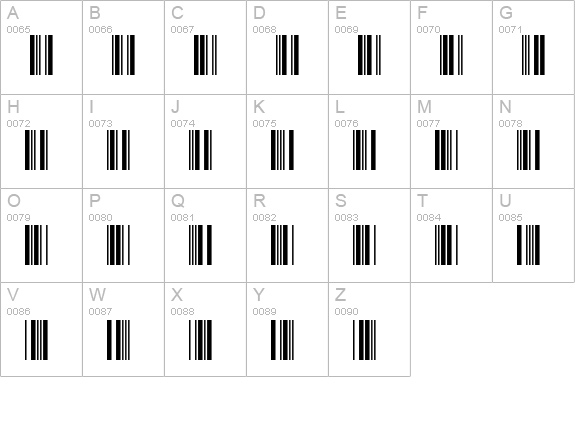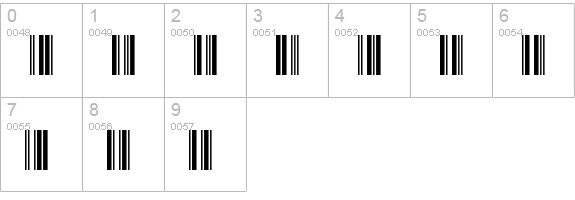
RSWide39 is a modern and elegant font that exudes sophistication and style. With its sleek lines and unique design, this font is perfect for adding a touch of class to any project. The bold yet refined appearance of RSWide39 makes it ideal for headings, logos, and other prominent text elements. Best of all, RSWide39 is available for free download at FontsMarket.com. This means that you can easily access this stunning font and use it in your design projects without any cost. Whether you're working on a personal project or a professional assignment, RSWide39 is sure to make a bold statement and elevate the overall look of your work. Download RSWide39 today and see the difference it can make in your designs!